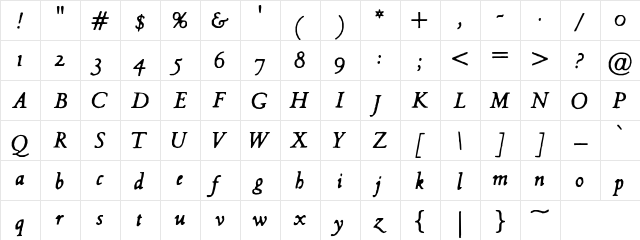
Hultog Italic
| Designer | S. John Ross |
Design Context for Hultog Typeface
Hultog is a composed and adaptable typeface that performs quietly and consistently across a wide range of design contexts. Its italic angle brings a sense of urgency and motion to the letterforms.
Pro Tip: Try Hultog for annotation and caption copy alongside an upright companion — the contrast in angle creates a dynamic but ordered typographic system.